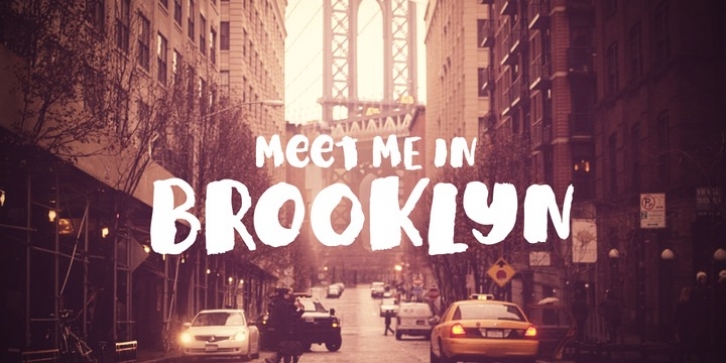
Meet Me In Brooklyn is a fun and friendly hand painted font. This typeface is unique and will brighten up any of your designs.
Meet Me In Brooklyn was creating with a mix of water and acrylic paint giving it a softer wet brush feel. Capitals and lower case letters work exceptionally well together. This font is very playful but legible.